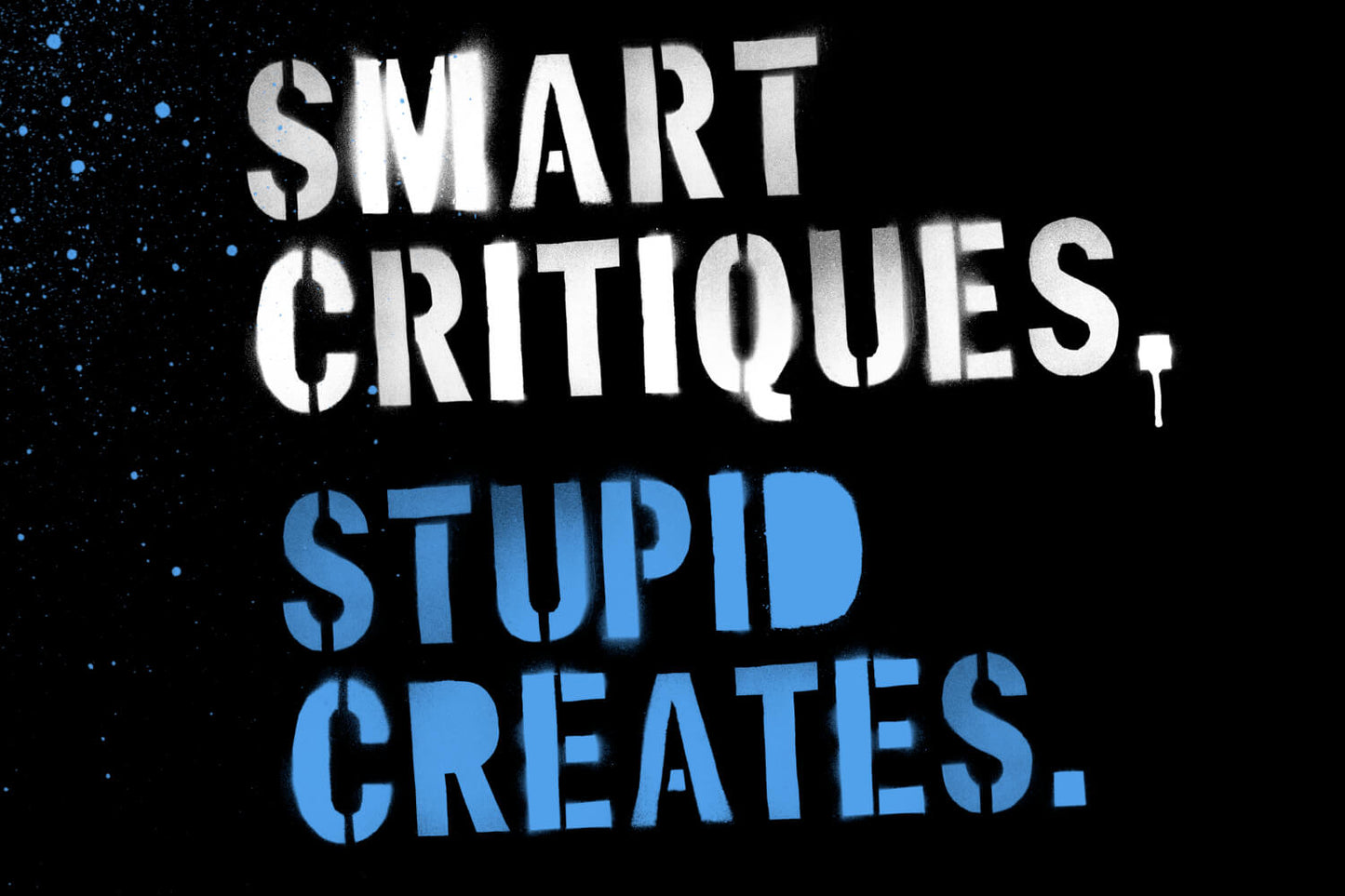
OpenType SVG fonts are supported most reliably in Adobe Photoshop CC 2017 and later, Illustrator CC 2018 and later, and current versions of InDesign.
Install them like any other OTF font: unzip the download, double-click the .otf file, choose Install, then restart your design software. They are larger than regular fonts because each letter can contain colour, gradients, transparency, texture and even high-resolution image data—not merely a black vector outline.
Which programs support OpenType SVG fonts?
The safest choices are Adobe’s professional design applications. Adobe officially documents OpenType SVG support in Photoshop, Illustrator and InDesign. Support elsewhere is less predictable because installing an OTF file and rendering the SVG artwork inside it are two different jobs.
- Adobe Photoshop CC 2017 and later: The most dependable option for colour, texture, transparency and bitmap-based OpenType SVG fonts.
- Adobe Illustrator CC 2018 and later: Supports OpenType SVG fonts and alternative characters through the Glyphs panel.
- Current versions of Adobe InDesign: Support OpenType SVG colour fonts, although complex bitmap artwork and PDF exports should be tested before production.
- Current versions of Adobe InCopy: Support OpenType SVG colour and emoji fonts.
- Other desktop and mobile applications: Support varies. An application may accept an OTF file but display only the plain fallback, lose its texture or refuse the font completely.
Photoshop is the best place to begin, particularly with handmade fonts containing real paint, ink, print or scanned texture. Adobe’s current Photoshop guide confirms that OpenType SVG characters can contain several colours, gradients and transparency while remaining editable as text.
Important: Canva, Microsoft Office, Procreate, Affinity and similar applications may allow custom fonts to be uploaded or installed, but that does not guarantee that they will render every OpenType SVG font correctly. Colour-font support varies according to the application, operating system and construction of the font.
A font appearing in the menu only proves the receptionist let it into the building. It does not prove the whole SVG department turned up for work.
Also, let’s face it no respectable designer should be using Canva it’s for people who think they are designers.
Does macOS or Windows support OpenType SVG?
macOS supports installing OpenType SVG files. Apple lists OpenType SVG .otf files among the formats supported by Font Book. The font then becomes available to applications on your Mac, but each application still needs its own SVG rendering support.
Windows can install OpenType .otf files, and modern versions of Windows include graphics components capable of rendering OpenType SVG. Again, the individual application must use those capabilities correctly.
Operating-system support is the front door. Application support decides what happens after you walk through it.
How do I install an OpenType SVG font on Windows?
- Download the font.
- Right-click the .zip folder and choose Extract All.
- Open the extracted folder and find the .otf file.
- Right-click the font and choose Install or Install for all users.
- Restart any design application that was open during installation.
Microsoft’s font installation guide confirms that Windows installs OpenType files in this way.
How do I use an OpenType SVG font in Photoshop?
- Select the Type tool.
- Click on the canvas to create a text layer.
- Choose the installed OpenType SVG font from the font menu. Photoshop marks compatible colour fonts with an OpenType SVG icon.
- Type normally. The wording, size, tracking and alignment remain editable.
- Open Window > Glyphs to see alternative letters, colour versions and additional characters included with the font.
For fonts with several versions of each letter, the Glyphs panel is not optional decoration. It is where the good stuff lives.
Lino Gothic, for example, includes five textured alternatives for every uppercase letter, so repeated characters do not have to look mechanically identical.
How do I use an OpenType SVG font in Illustrator or InDesign?
In Illustrator, create a text object, choose the font and type as normal. Open Window > Type > Glyphs to browse the available alternatives.
In InDesign, create a text frame, apply the font, then open Window > Type & Tables > Glyphs.
- Websites: Check browser support, loading speed and licensing before embedding the font.